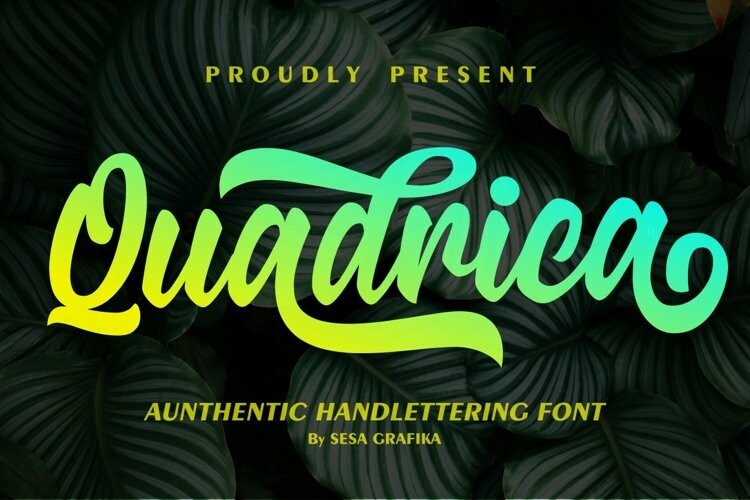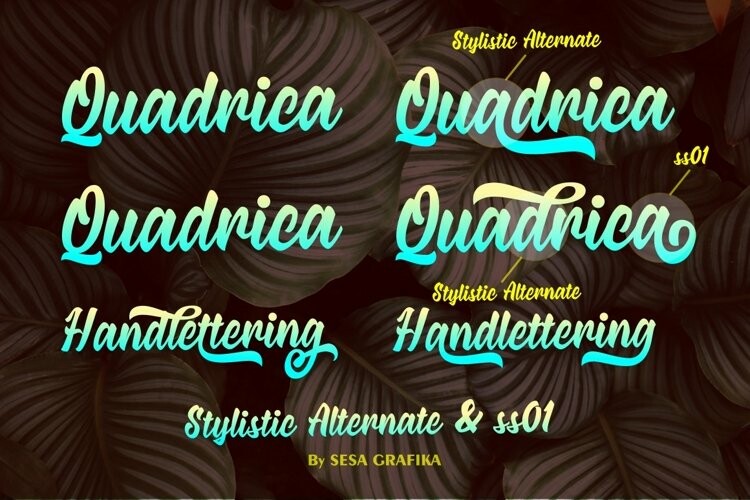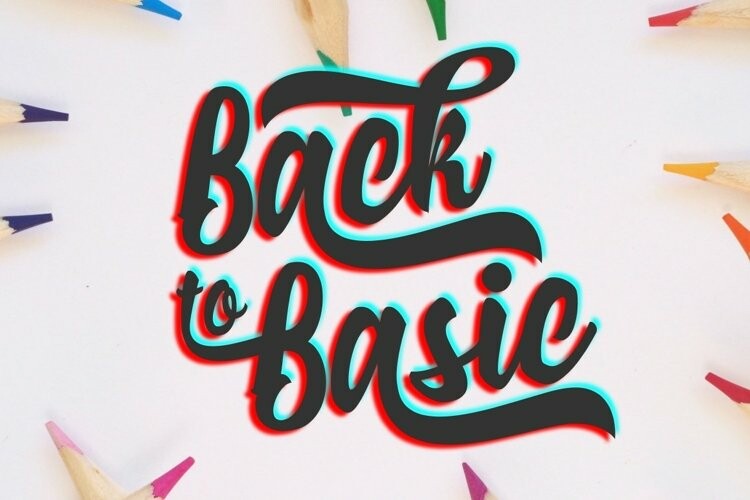
Quadrica Font
Quadrica Font is an urban retro font with the style like a logotype lettering.
was created to help you designing logotype or lettering style for your Brand or your clients.
it has an extensive lingual support, covering European and Asian Latin scripts.
The font contains all characters you’ll ever need, including all punctuation and numbers.